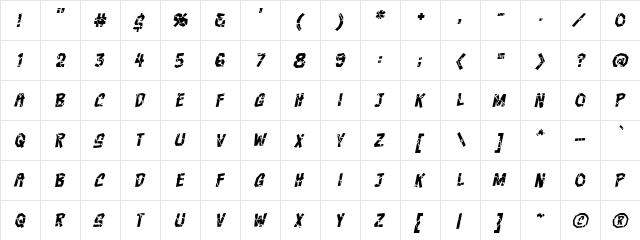
Crashcourse BB Italic
| Foundry | Nate Piekos. Blambot.com |
| Designer | Nate Piekos |
Design Context for Crashcourse BB Typeface
Crashcourse BB is a composed and adaptable typeface that performs quietly and consistently across a wide range of design contexts. Its italic angle brings a sense of urgency and motion to the letterforms.
Pro Tip: Try Crashcourse BB for annotation and caption copy alongside an upright companion — the contrast in angle creates a dynamic but ordered typographic system.